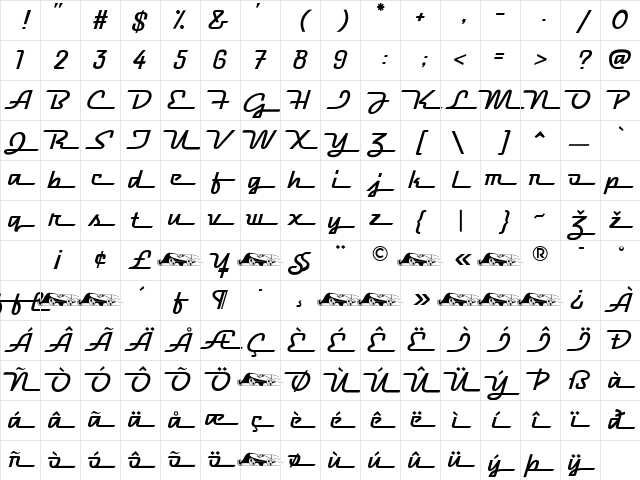
Raceway Regular
Copyright: 1995, Leslie Cabarga. Designed by Leslie Cabarga. Produced by The Font Bureau, Inc.
Foundry: Leslie Cabarga. Designed by Leslie Cabarga. Produced by The Font Bureau, Inc
Design Context for Raceway
Raceway is a composed and adaptable typeface that performs quietly and consistently across a wide range of design contexts.
Who designed the Raceway Regular font?
This font was published by Leslie Cabarga. Designed by Leslie Cabarga. Produced by The Font Bureau, Inc. Check the technical specs section for copyright and designer details.